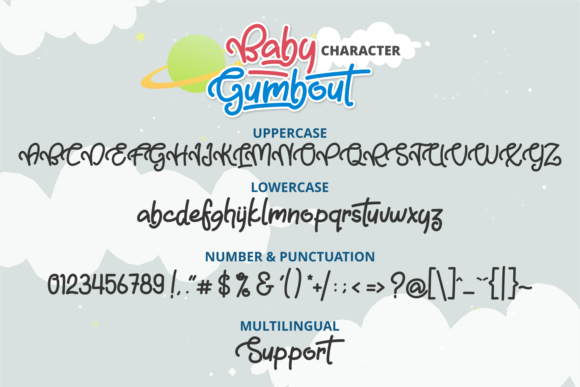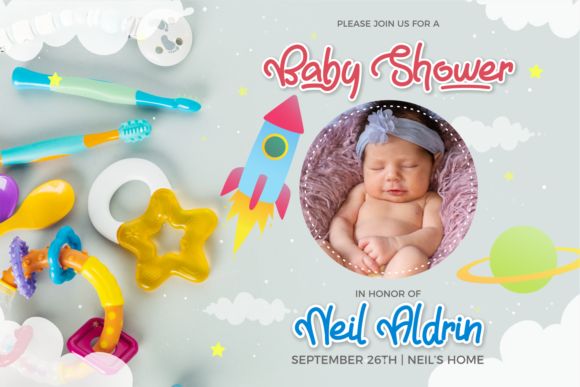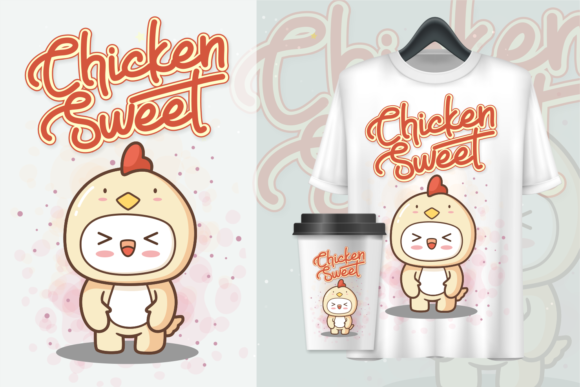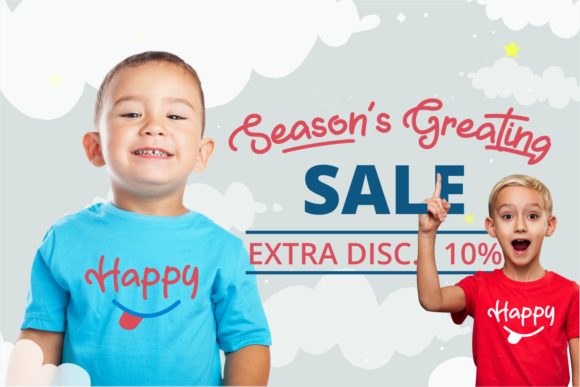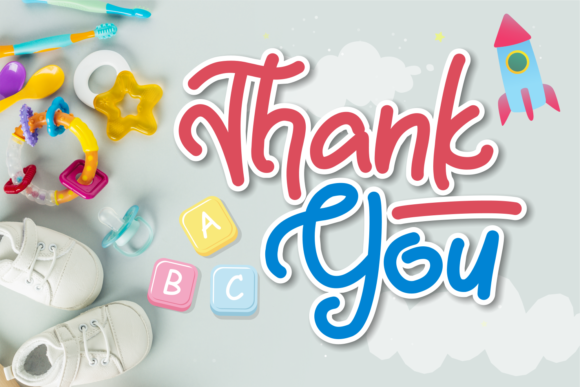
Introduction to Baby Gumbout Font
Have you ever stumbled upon the perfect font while working on a design project, and it instantly elevates your entire creative process? That’s exactly what happened to many designers when they discovered the Baby Gumbout Font. This cheerful, funny, and friendly handwritten font has been a game-changer for numerous design projects, from branding and headings to wedding designs, invitations, and logos.
With its unique charm and high-quality design, the Baby Gumbout Font has become a valuable resource for designers who crave something special for their creative projects. Whether you’re looking for a free download or a reliable design resource, this font is sure to meet your expectations. Its transparent background and versatile style make it an excellent choice for designers who want to add a personal touch to their work.
- High-quality design resource ideal for creative projects, offering a unique and playful touch.
- Characterized by its rounded, cursive style, making it perfect for adding a touch of whimsy to children’s products, logos, or branding.
- Perfect for use in digital design, including social media graphics, posters, and other creative projects that require a fun and playful font.
Honest Review: Baby Gumbout Font
I recently had the chance to play around with the Baby Gumbout Font, and I must say, it’s a delightful addition to any design project. This font is perfect for those who want to add a touch of whimsy and charm to their work.
- ✨ High-quality design: The font is crisp and clean, making it perfect for use in a variety of creative projects.
- ✨ Versatile: The Baby Gumbout Font can be used for both digital and print projects, from business cards to children’s book illustrations.
One thing to note is that the font does come with a transparent background, which can be a bit tricky to work with. However, this can also be seen as a benefit for designers who want more control over the design process.
Overall, I’m impressed with the Baby Gumbout Font. It’s a fun and creative addition to any design project, and its high-quality design makes it a great choice for both beginners and experienced designers. ⚠️ Just be mindful of the transparent background and make sure to adjust your design accordingly.